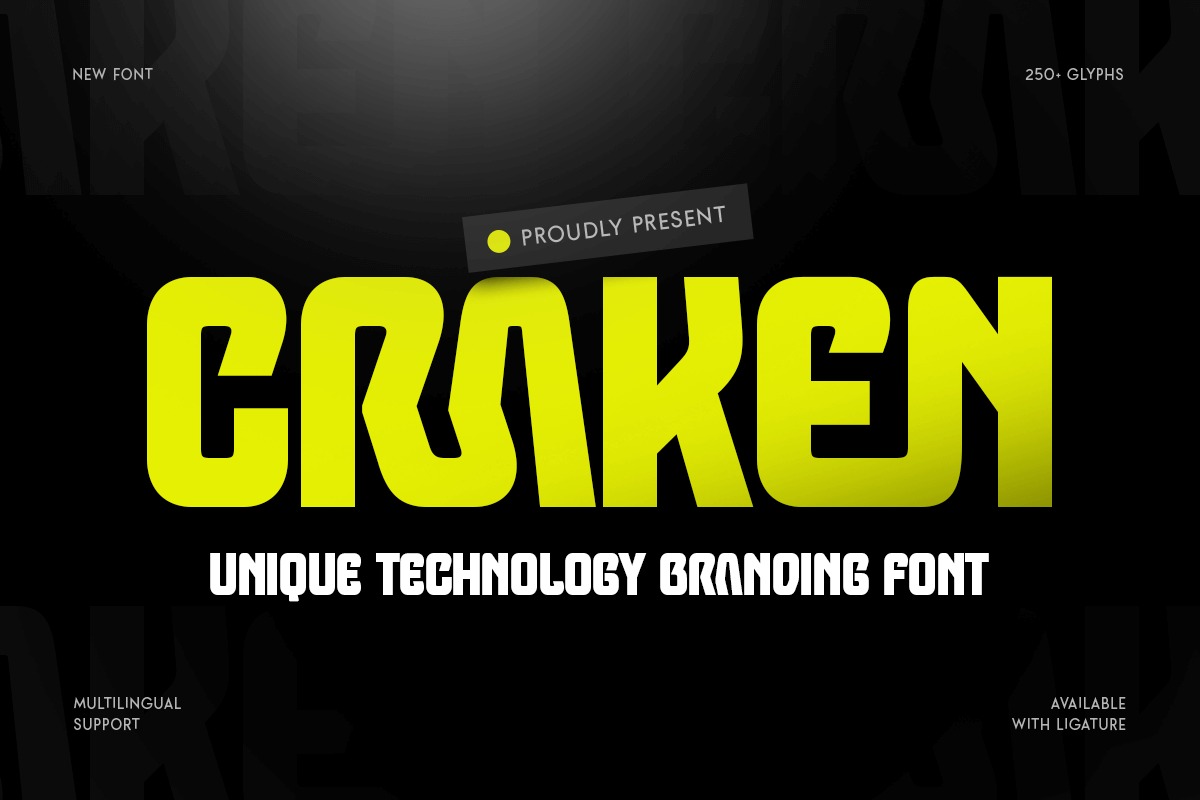
Craken Font
Craken Font is a premium-quality font developed to enhance your work with a polished, modern, and visually elevated look. Craken – Unique Technology Branding Font Craken is a unique technology font designed to deliver a bold, modern and innovative branding presence. With its distinctive letterforms, sharp details, and futuristic structure, Craken is perfect for technology logos, startups, digital products, gaming brands, software companies, and modern visual identities.
Built to stand out in the digital era, Craken combines originality with strong readability. Its tech-inspired design gives brands a powerful and confident character, making it ideal for AI projects, fintech branding, creative studios, and businesses seeking a cutting-edge and memorable typographic identity.